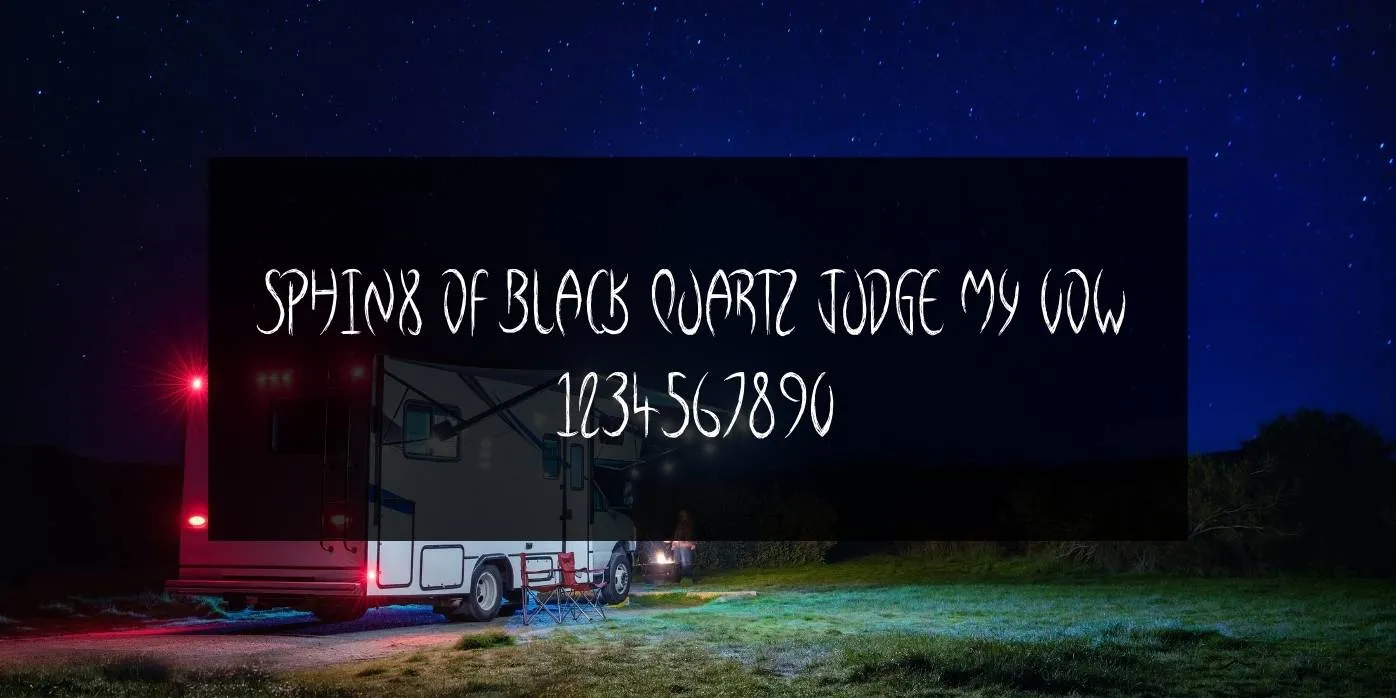
From Nowhere Font
In this article, we present From Nowhere Font which belongs to the fancy fonts. This typeface was developed by Jonathan S. Harris. The main aim of this font is to give a natural look.
This font supports up to 28 languages. This font is perfect for those who are looking for a simple and elegant font. This awesome font package includes Regular, Bold, Italic, and Bold Italic versions of the font. This awesome typeface has different character sets and OpenType features.
The copy-and-paste function of this typeface is well suitable for various designs. You can also use the care bears font which is closest to this font family. Its features include it has a high x-height. It has wide apertures in all letters.